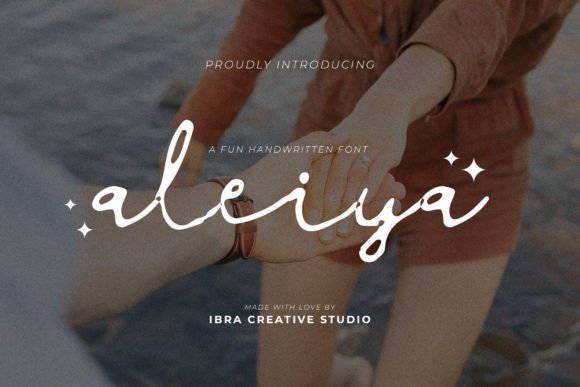
Step into a world of whimsical enchantment with Aleiya Font, a captivating script font that sparks joy and ignites imagination. Created by the talented ibracreative, Aleiya is not just a font; it's an invitation to let your creativity soar.
With its playful and carefree letterforms, Aleiya captures the essence of spontaneous joy and childlike wonder. Each character dances across the page, exuding a sense of freedom and unrestrained expression. It's a font that reflects the beauty of imperfect perfection, embracing the quirks and uniqueness that make each word come alive.
As your eyes dance across the words crafted with Aleiya, you'll feel a sense of lightheartedness and playfulness wash over you. It's a font that invites you to embrace your inner child, to let your imagination run wild, and to see the world through the eyes of wonder.
Whether you're designing mugs, creating invitations, or crafting social media posts, Aleiya Font adds a touch of magic to every project. Its friendly and approachable nature makes it easy to read and engaging, while the unique character variations infuse each word with personality.
With Aleiya Font, you'll discover a world where creativity knows no bounds. It's a font that transforms ordinary words into extraordinary expressions, capturing the essence of joy, playfulness, and unbridled imagination. Let Aleiya Font be your muse, your creative guide, as you embark on a journey of self-expression and artistic exploration.